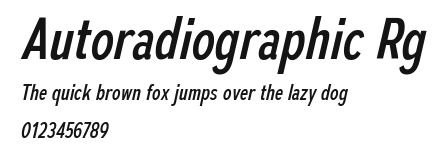
Autoradiographic Rg Preview
• Font Name: Autoradiographic Rg
• Designer: Ray Larabie
• Manufacturer: Ray Larabie
About Autoradiographic Rg.ttf
Autoradiographic Rg.ttf is a modern, elegant sans-serif font designed for ultimate readability and visual harmony. Perfect for branding, headlines, web design, and print materials.